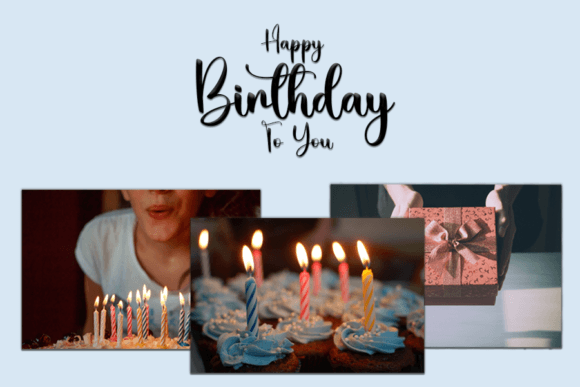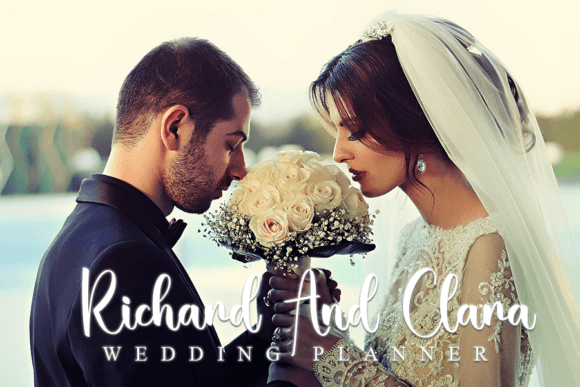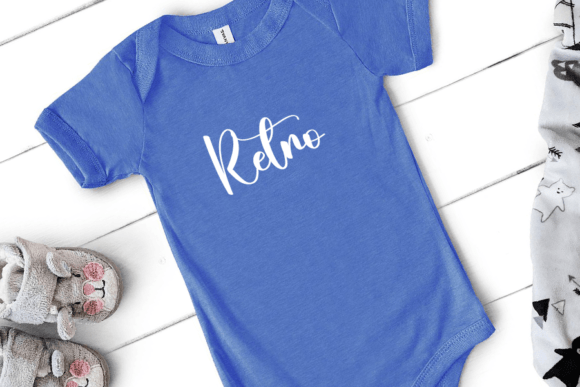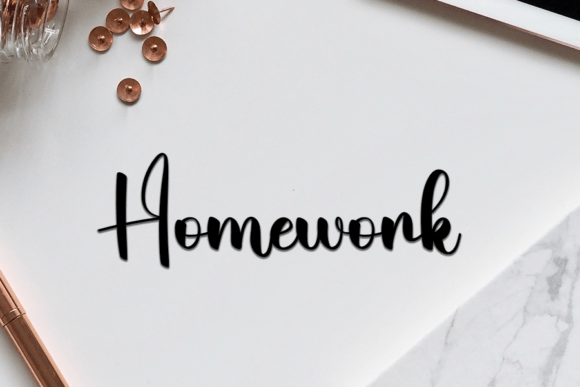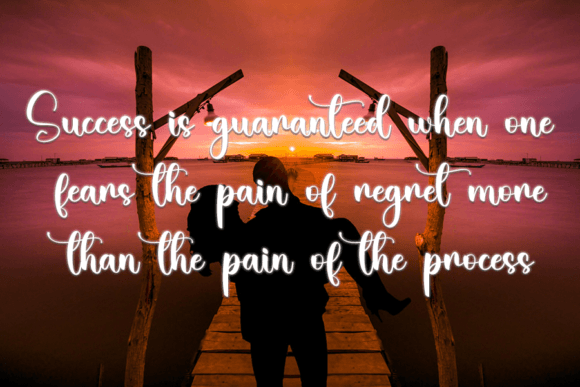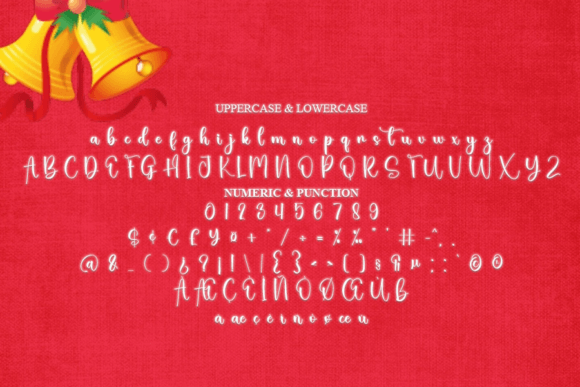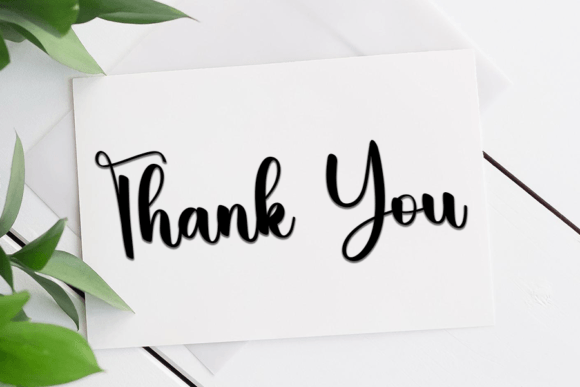
Retro Christmas Font
About Retro Christmas Font
Retro Christmas Font is a delicate handwritten script that brings nostalgic charm and festive elegance to holiday-inspired projects. Designed with a playful yet stylish touch, it blends vintage personality with modern usability. Because of its versatile structure, Retro Christmas Font is perfect for invitations, food product packaging, holiday cards, titles, posters, and seasonal branding.
A Handwritten Typeface with Retro Spirit
Fonts play a huge role in setting the mood of a design, and Retro Christmas Font captures a timeless holiday spirit. Its retro-inspired curves, combined with a delicate handwritten style, make it ideal for projects that need warmth, tradition, and personality. In addition, its balance of legibility and flair ensures it works beautifully across both professional and personal creations.
Perfect Typeface for Invitations and Cards
Seasonal events require memorable design, and Retro Christmas Font delivers exactly that. For example, it can transform Christmas cards, party invitations, and holiday menus into stylish keepsakes. Moreover, its handwritten strokes make each design feel personal and unique, ensuring a stronger connection with the audience.
A Typeface for Labels and Holiday Branding
Designers and businesses can rely on Retro ChristmasFont to enhance seasonal products. It adds charm to food packaging, labels, and festive advertising campaigns. Furthermore, it works beautifully in holiday-themed merchandise such as tote bags, mugs, and apparel. When paired with simple sans serif fonts, it creates a professional yet playful balance.
Another advantage of Retro ChristmasFont is its adaptability across platforms. In print, it looks sharp on posters, flyers, and packaging. Digitally, it enhances social media campaigns, e-commerce banners, and blog graphics. Since it maintains clarity at both small and large sizes, this handwritten script remains practical for stickers, tags, and large-scale displays alike.